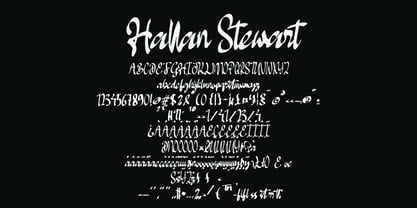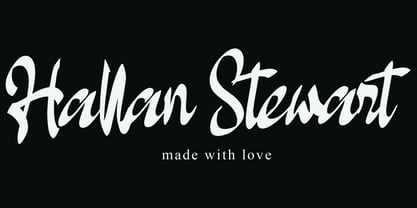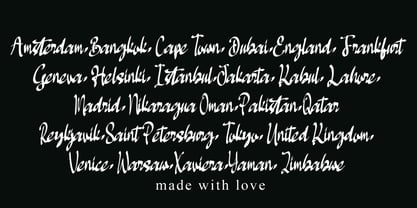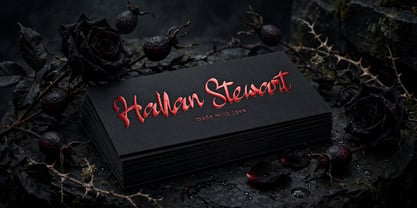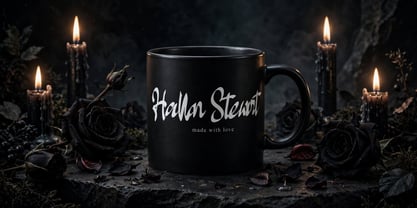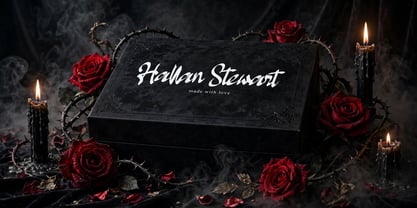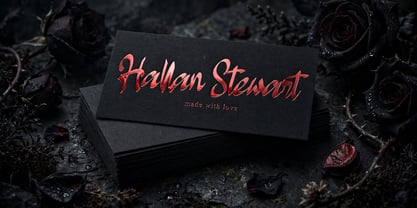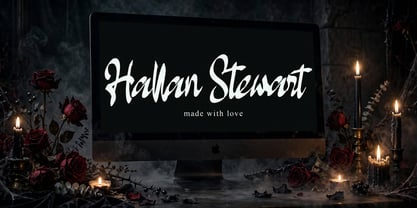
Hallan Stewart
The Hallan Stewart Font Family was designed by Dhoni Trihatmoko and published by Ayska. Hallan Stewart contains 1 styles. More about this family
Journey into the captivating world of Hallan Stewart, a delicate fusion of modern typeface finesse and the enchanting allure of handwritten calligraphy. This unexpected showcase of artistic genius emits an enticing charm that captivates the senses. Enrich your blog with the vibrant dynamism of Hallan Stewart, or utilize its potent pull to enhance the impact of your printed invites. Immerse yourself in the invigorating brilliance it brings to your poetic creations. Dive deeper into Hallan Stewart's magnetic appeal, an ideal addition to elevate the breathtaking atmosphere in your photography and to carve out a unique flair in your home designs. This extraordinary font holds the power to transform the mundane into resplendent wonder, injecting mesmerizing artistry into every pixel of your projects. Allow Hallan Stewart to navigate your voyage through the vast universe of artwork and design, guiding you towards a boundless realm of unrivaled imagination. Embark on this artistic journey with Hallan Stewart, and watch your creative concepts evolve into stunning digital masterpieces.
Hallan Stewart